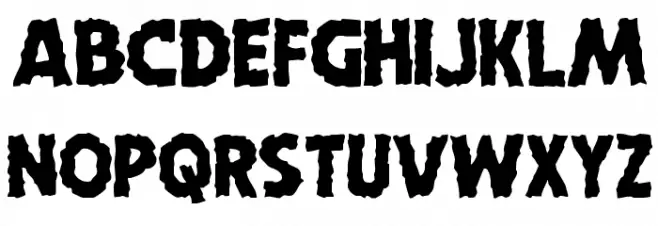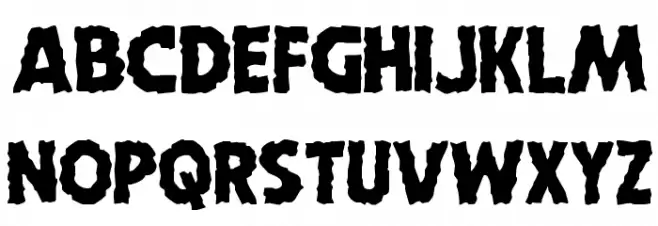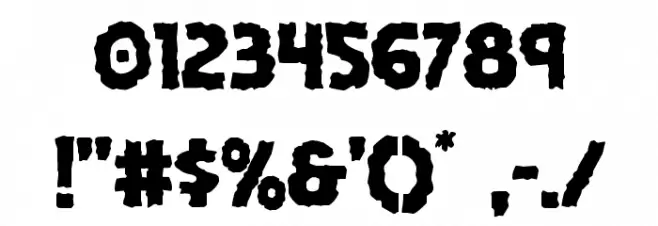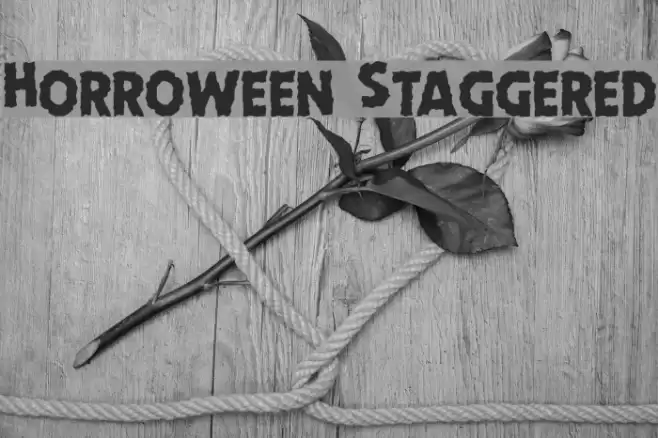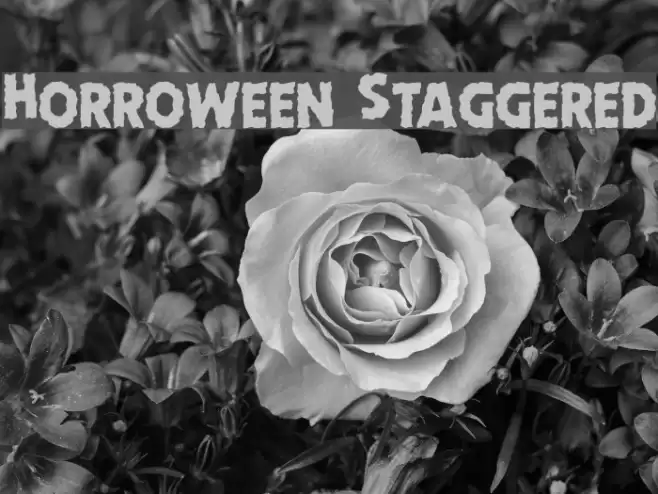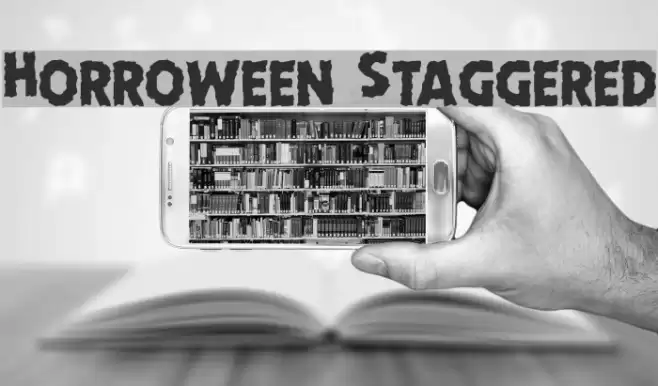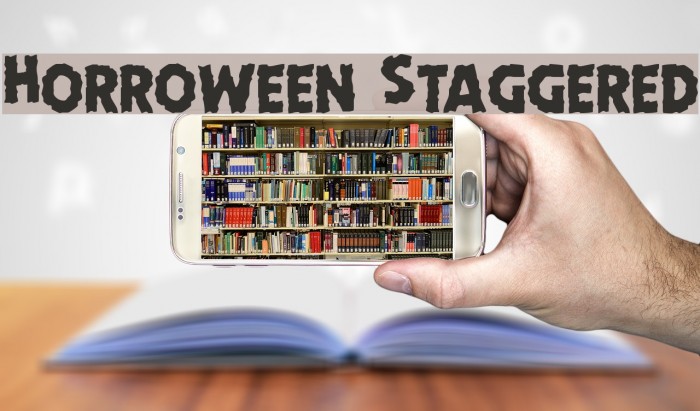
Horroween Staggered
This font features a rugged, jagged appearance reminiscent of torn paper or rough edges, creating a spooky and unsettling aesthetic. The characters are bold and irregular, with uneven strokes that give a sense of movement and chaos. The uppercase and lowercase letters maintain a consistent style, with the uppercase being slightly larger and more pronounced. Numbers and special characters follow the same design principles, ensuring a cohesive look across all glyphs. The font's unique style makes it ideal for themes related to horror, Halloween, or anything requiring a dramatic and eerie touch.
A bold, jagged font with a spooky, chaotic aesthetic.
- Proposed Projects: Ideal for Halloween-themed designs, horror movie posters, haunted house flyers, and spooky event invitations.
- Overall Style: Decorative